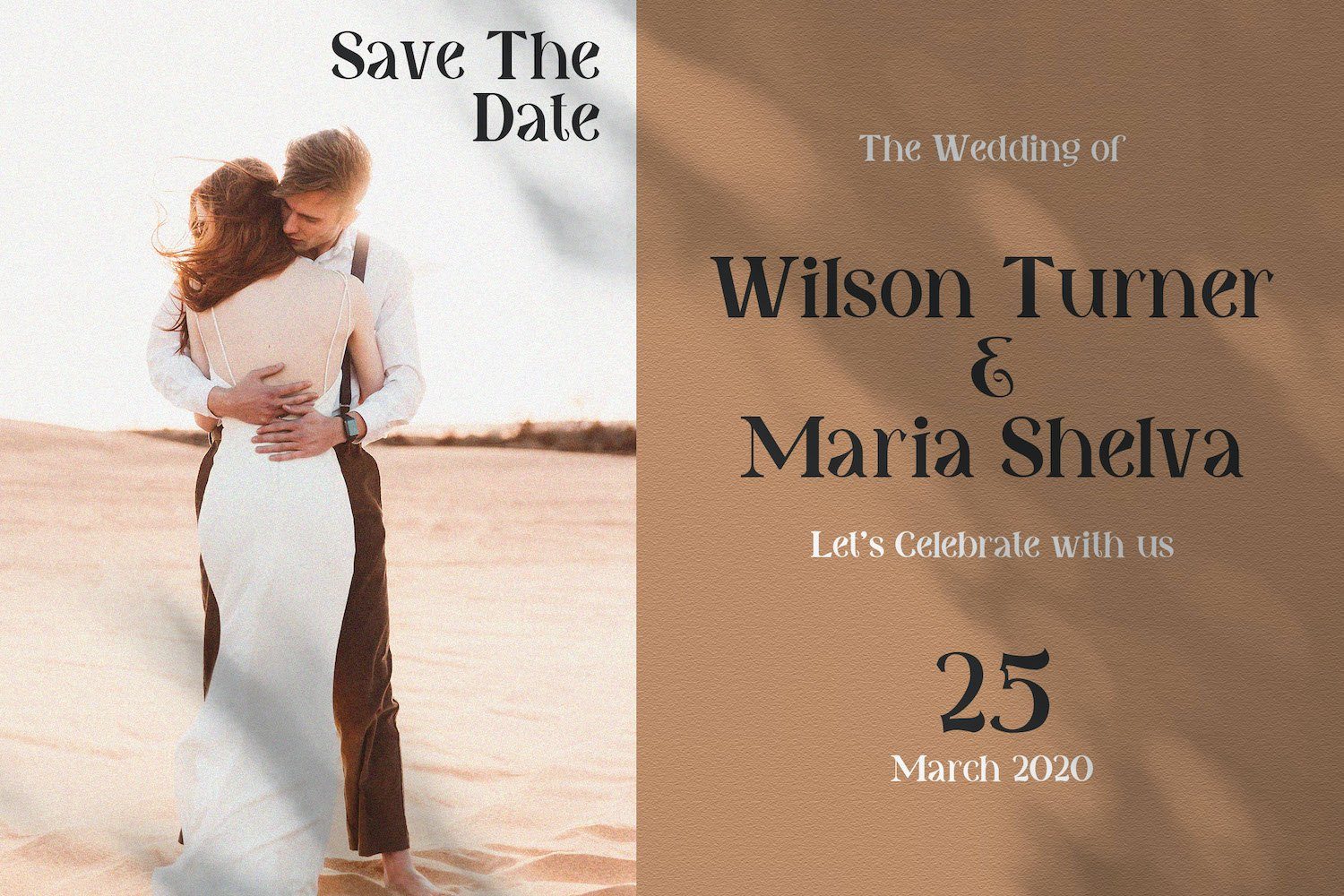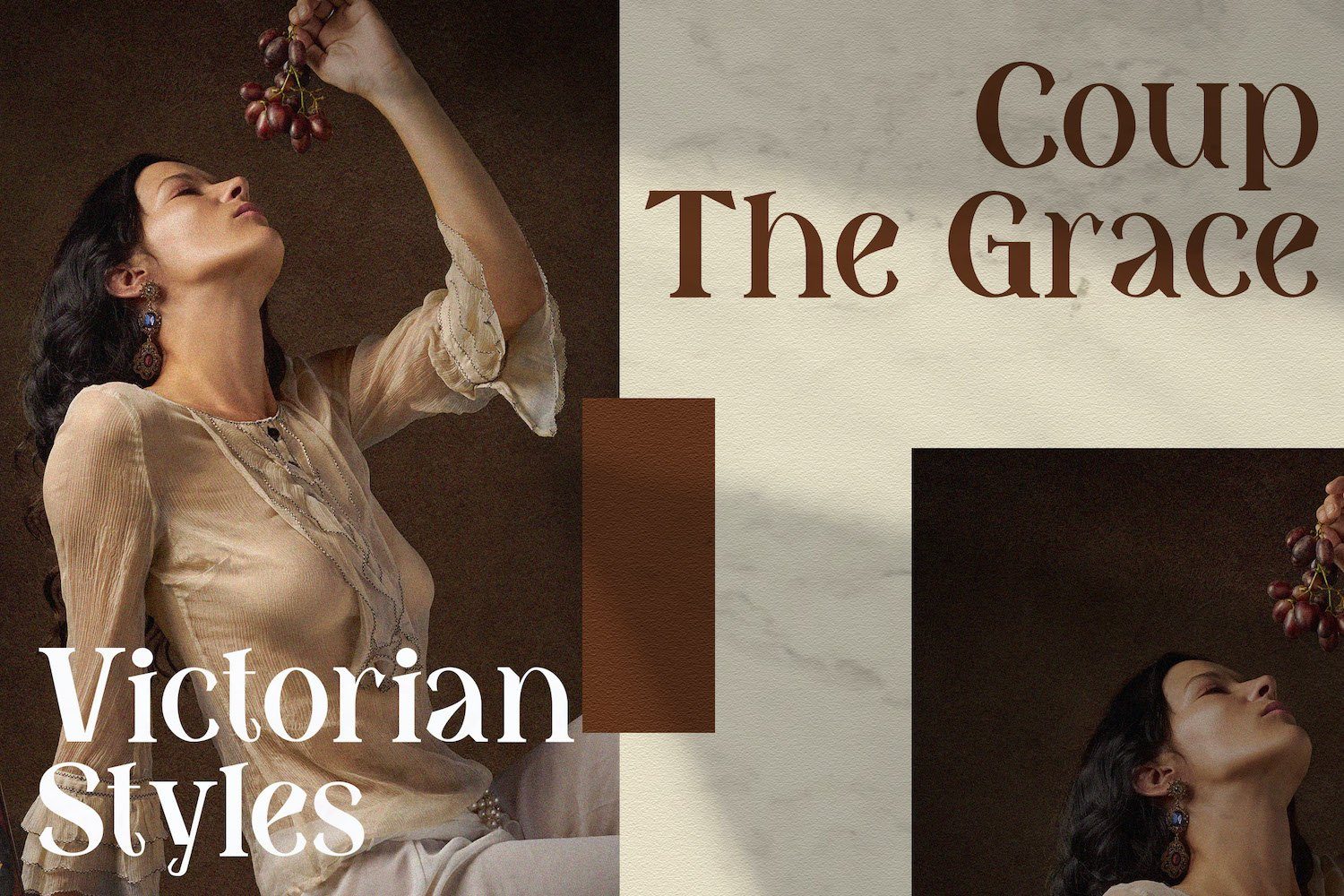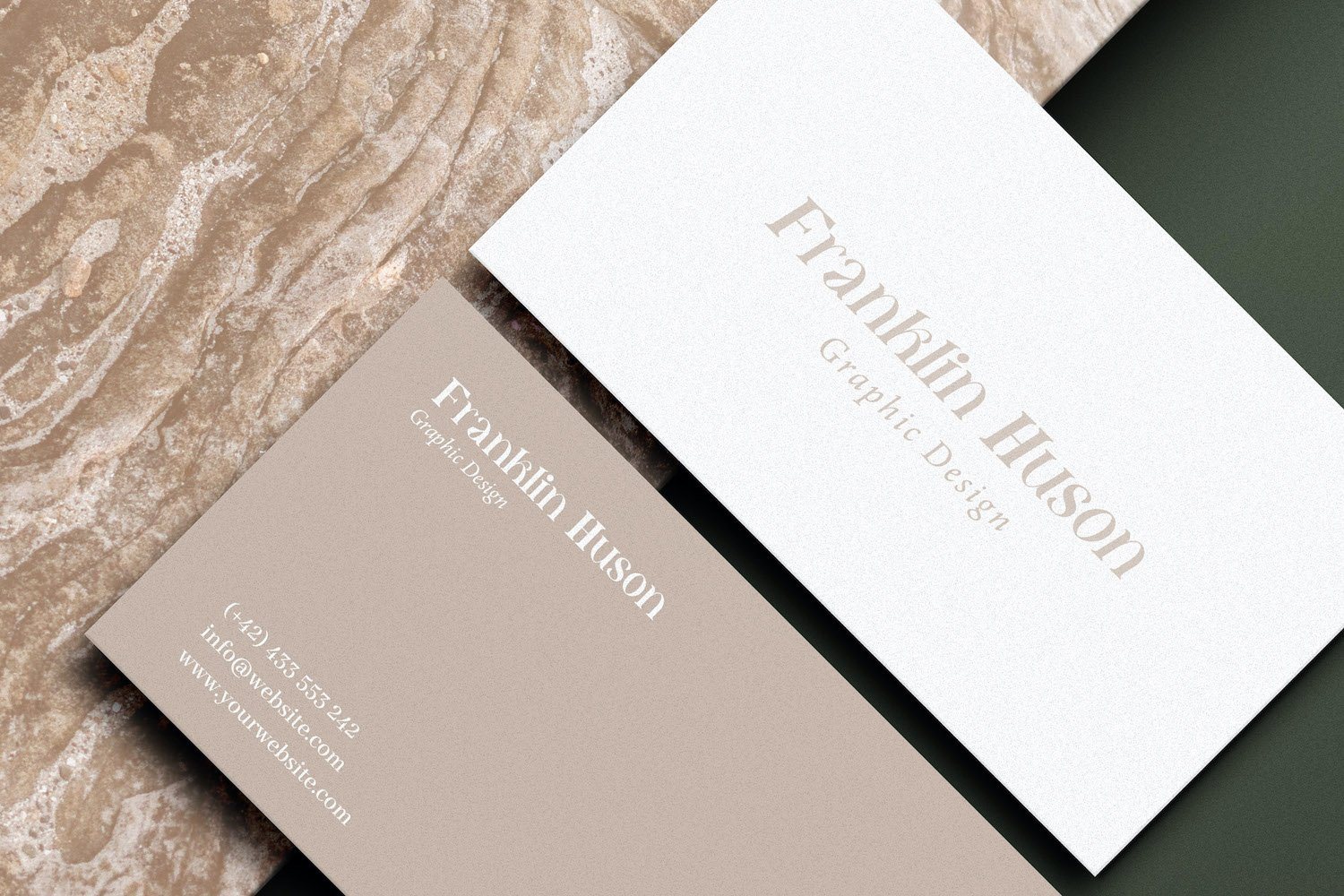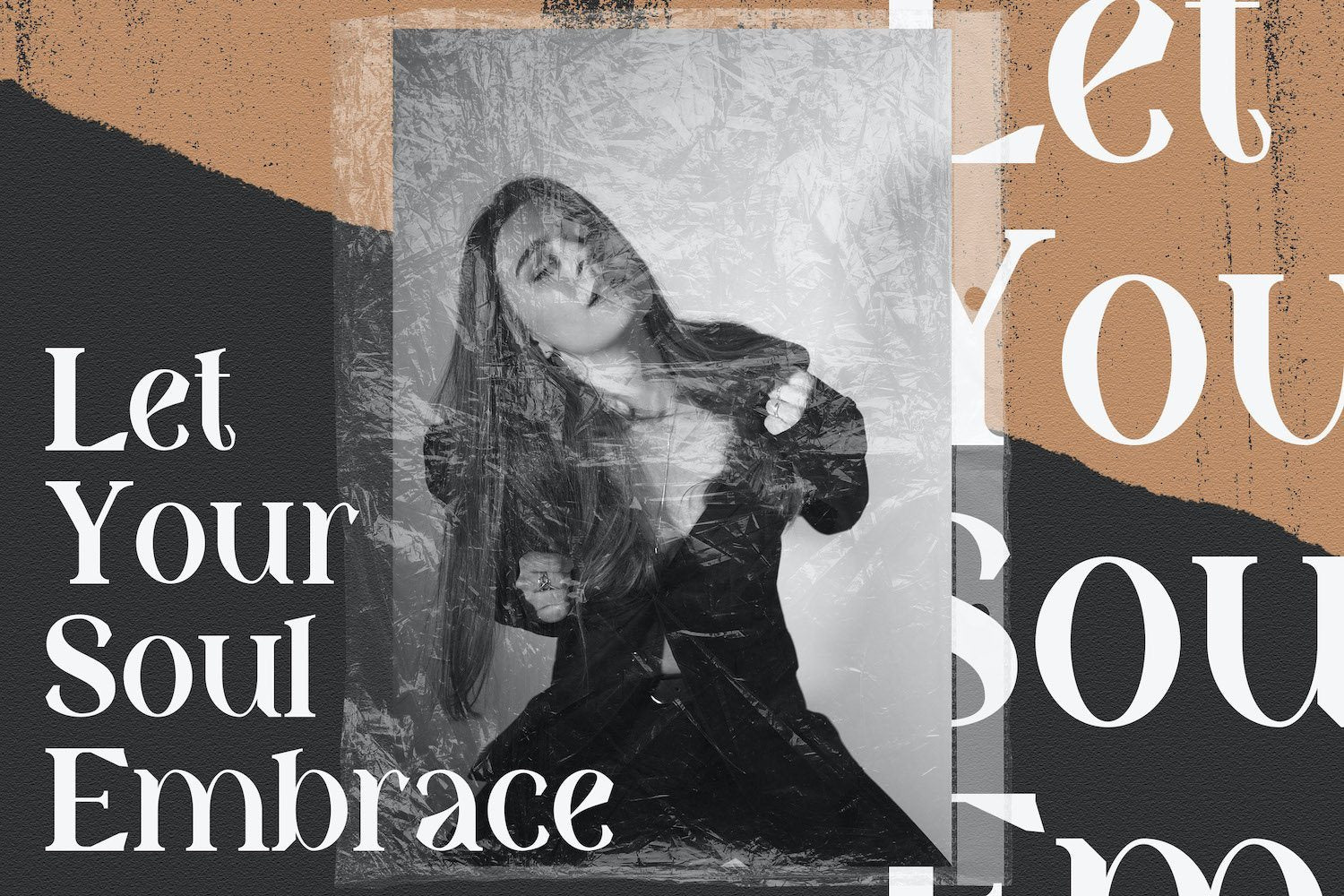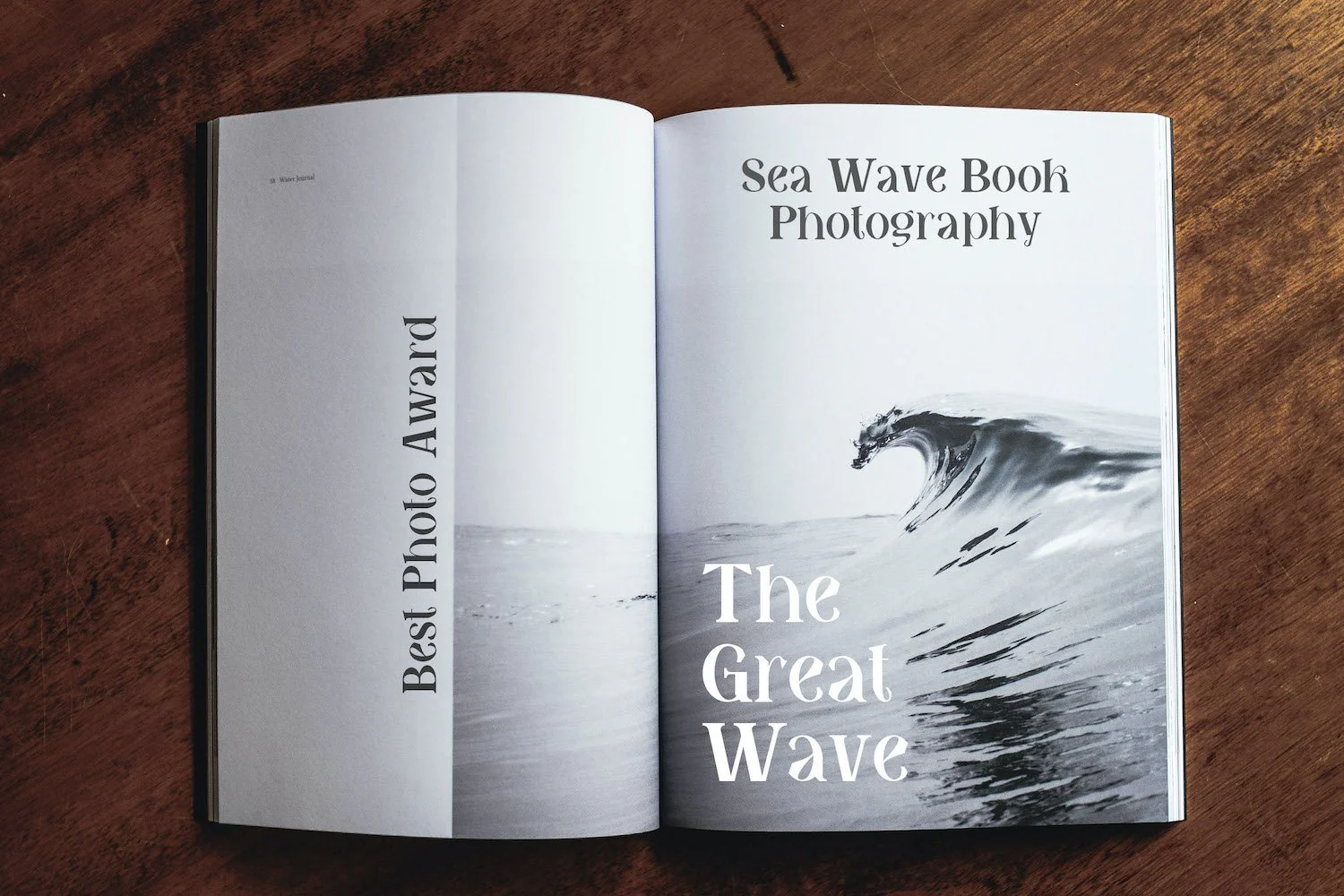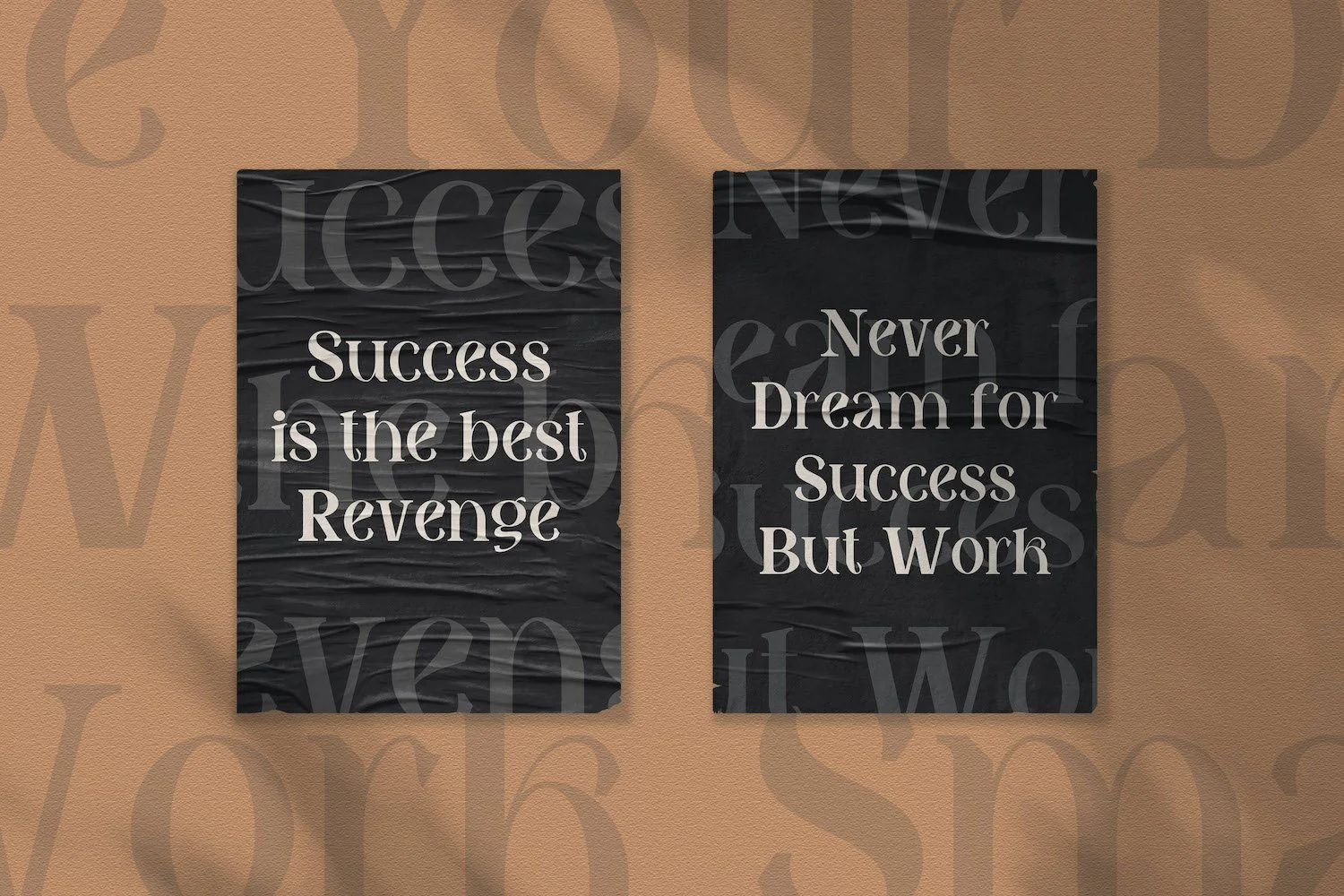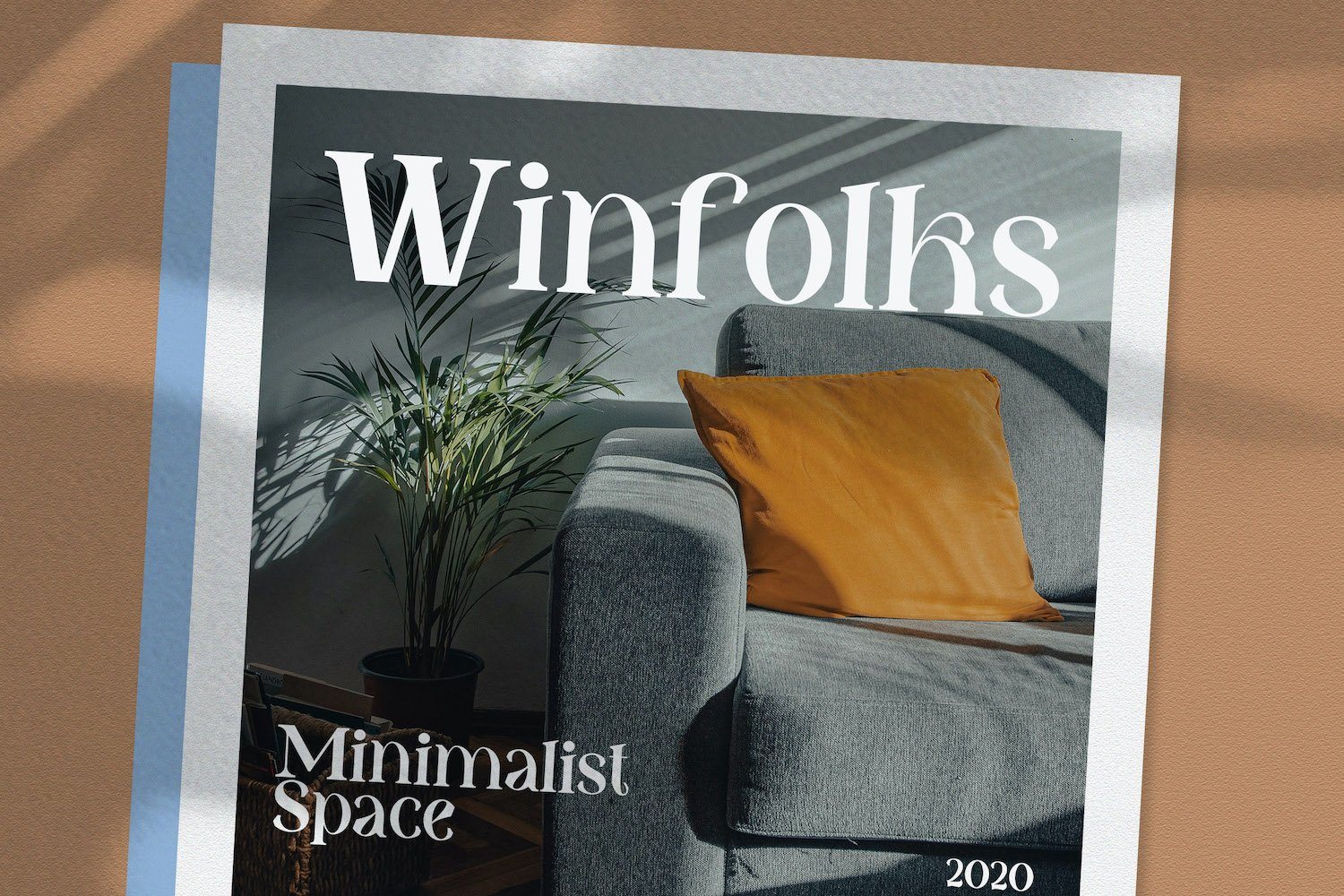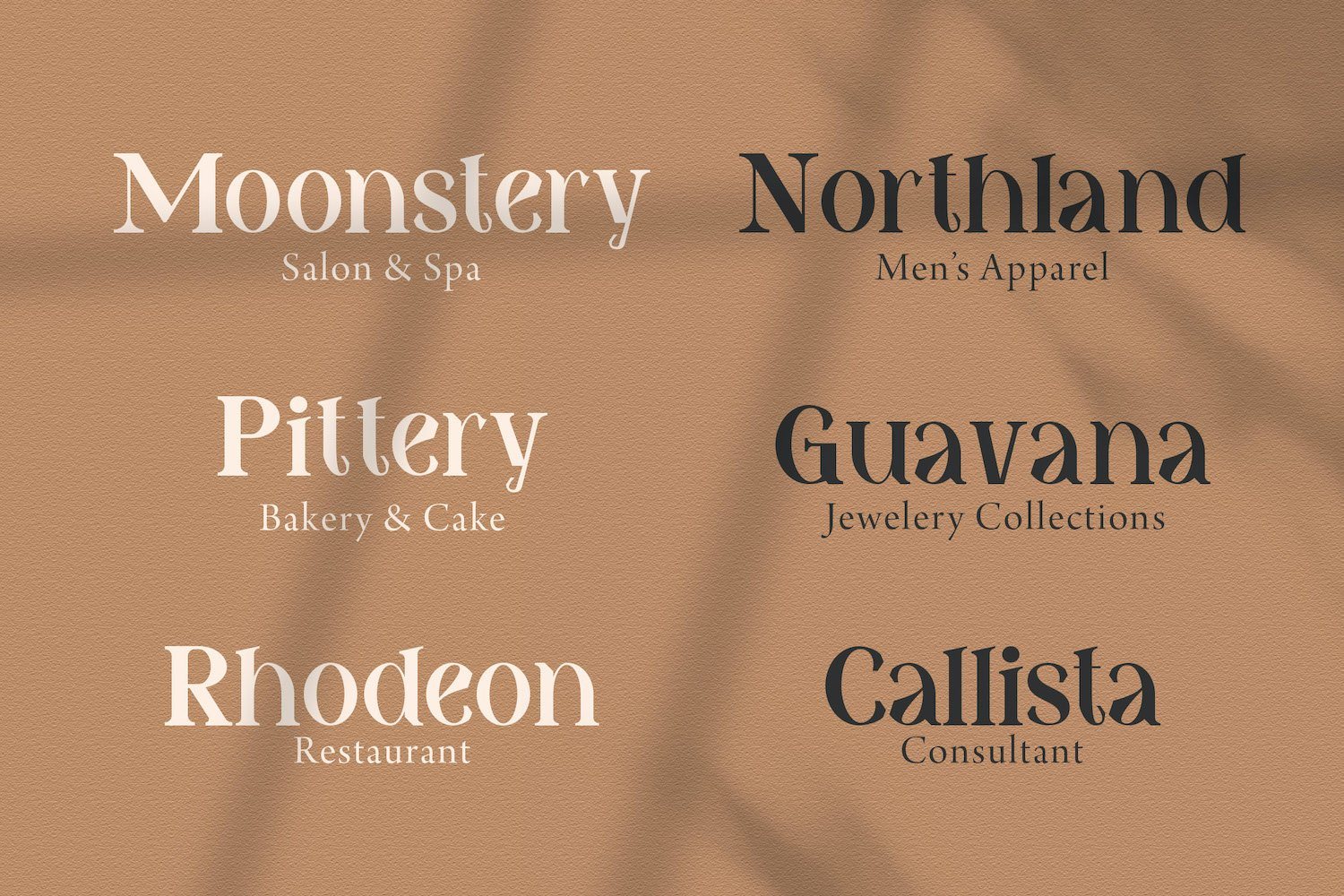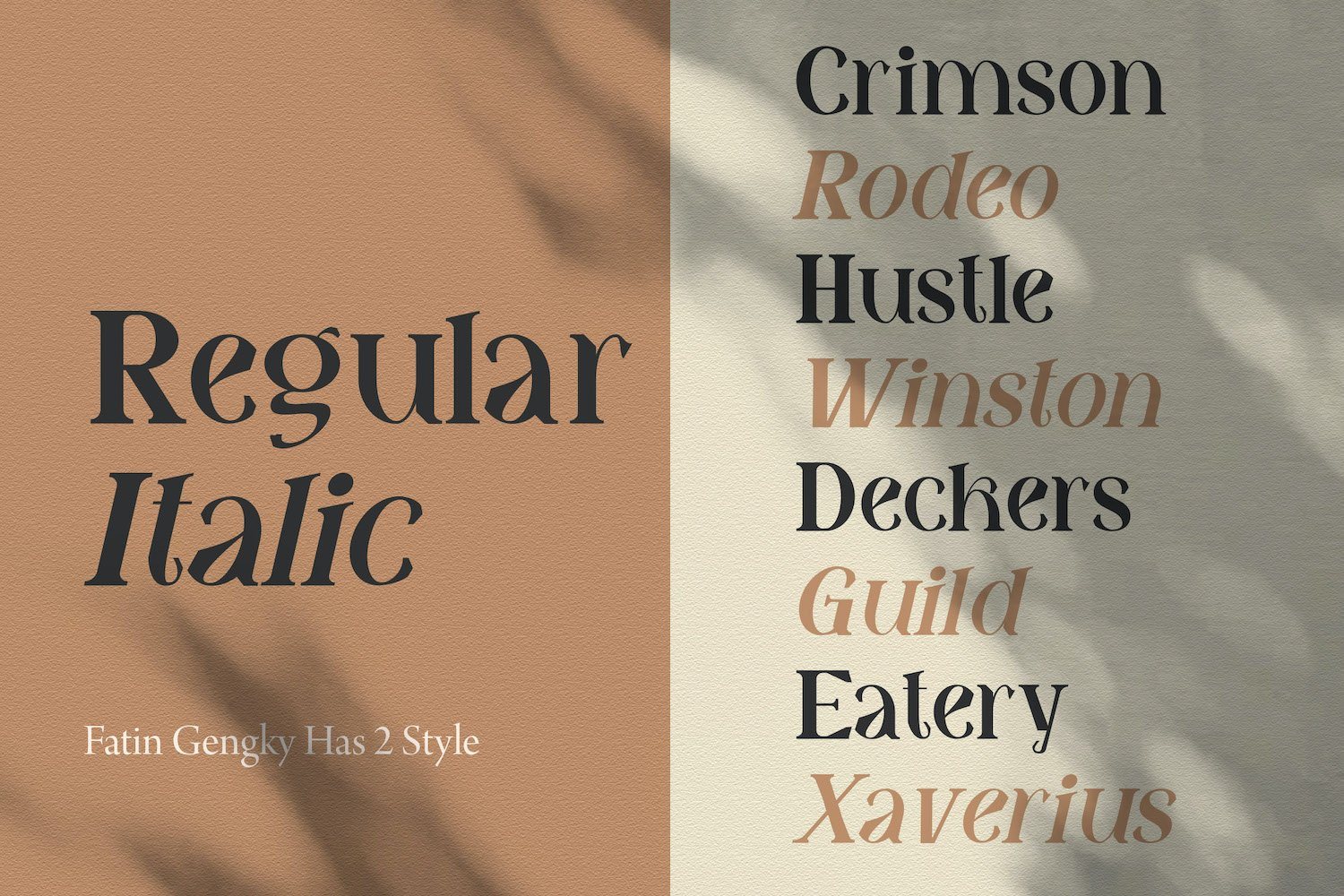
Fatin Gengky - Casual Serif Font
Introducing Fatin Gengky - Casual Serif Font
Fatin Gengky is an authentic and neat serif font. It can easily be matched to an incredibly large set of projects, so add it to your creative ideas and notice how it makes them stand out!
- Regular Version
- Italic Version
Introducing Fatin Gengky - Casual Serif Font
Fatin Gengky is an authentic and neat serif font. It can easily be matched to an incredibly large set of projects, so add it to your creative ideas and notice how it makes them stand out!
- Regular Version
- Italic Version